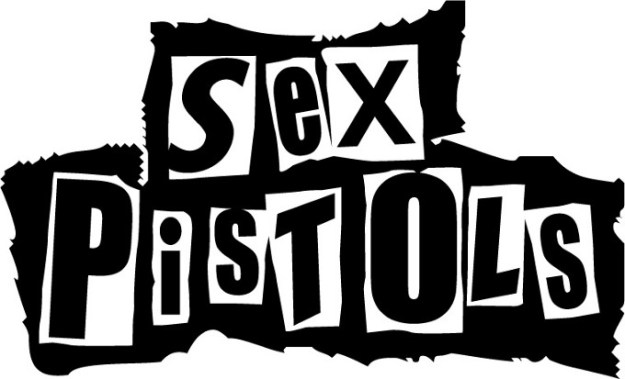
How Punk changed Graphic Design and is history repeating itself?
Punk emerged as a reaction to the rigid restrictions of Modernism and its style ripped up the rules of Swiss minimalism and neutral sans serif typography. As traditional attitudes came to be considered outdated, society rebelled against the mainstream and demanded change. It feels like we are at a similar turning point today, both culturally and typographically. Can we look to history for parallels in how graphic design and cultural attitudes are changing today?
Sarah Hyndman on Punk, which first exploded in the 1970s and, at the time, looked like youthful rebellion.
In actuality it was part of the Postmodernist movement which began as a reaction to the rigid restrictions of Modernism. Its DIY ethos encapsulated the anti-establishment mood of the mid 1970s, a time of political and social turbulence. The former British Empire was dissolving and a new era in British music, fashion and design was beginning.
Taking the stage to articulate the feelings of a dissatisfied generation calling for change were the Sex Pistols, who played their first gig in 1975 at St Martins College of Art. Their outrageous behaviour and contempt for established conventions announced the beginning of Punk. The DIY ethos and uncontrolled, home made style was revolutionary at the time and launched a new era in British music, fashion and design.